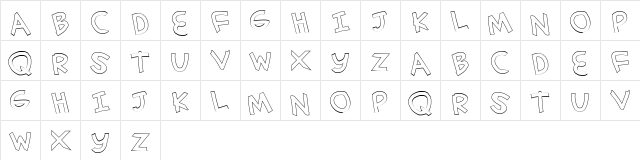
simplehand outline Regular
Designer: andy greer and max infeld
Design Context for simplehand outline
simplehand outline flows with the natural rhythm of handwritten lettering, making it ideal for designs that call for warmth and personal expression.
Font Pairing: Combine simplehand outline with a simple geometric sans for maximum contrast - the tension between flowing curves and clean structure is a classic typographic pairing.